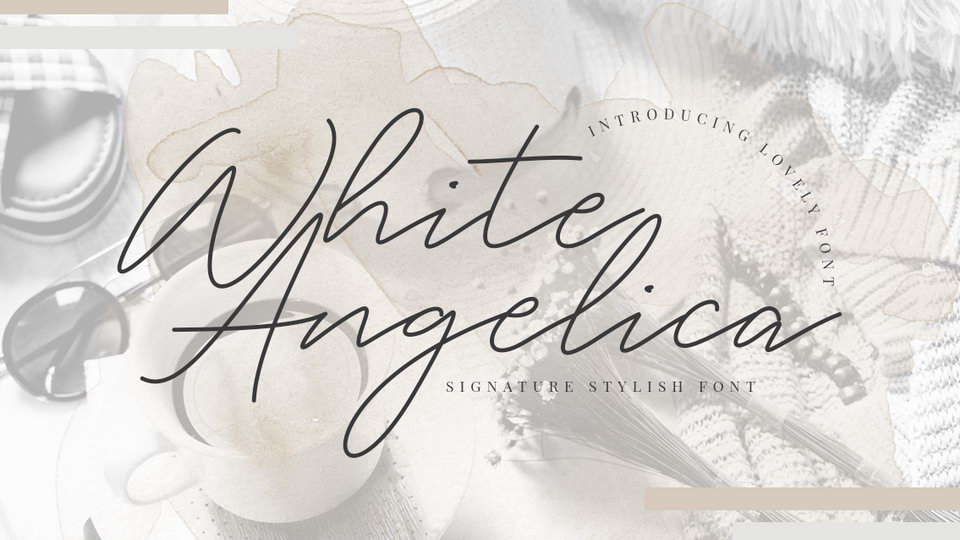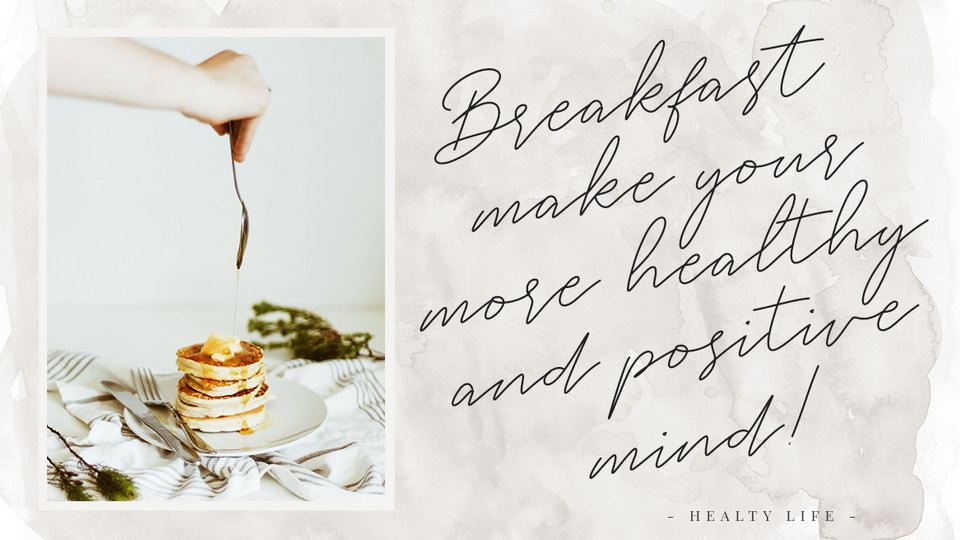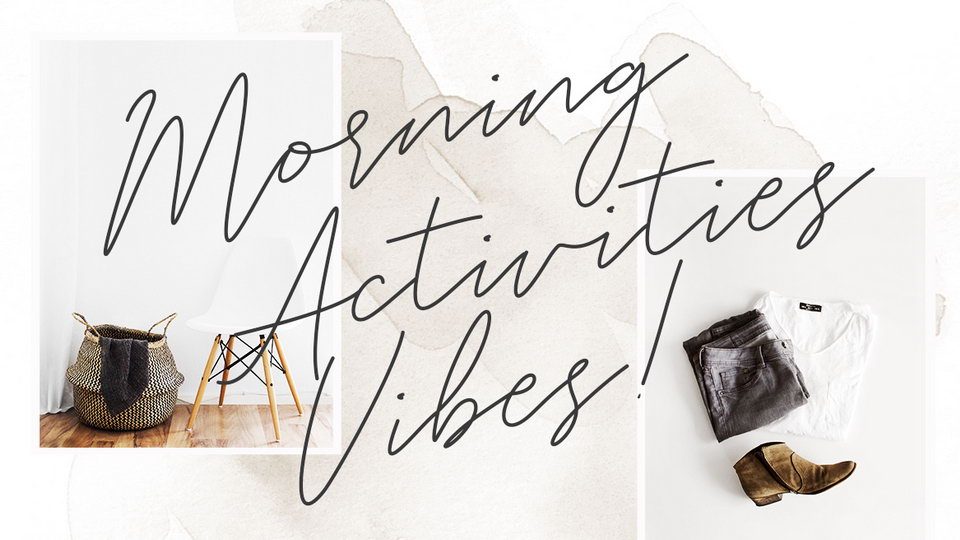
White Angelica is a casual signature script font with unique flow and natural and organic look. It contains uppercase and lowercase letters, numbers, symbols, including multilanguage support.
White Angelica Signature is perfect for branding projects, logo, wedding designs, social media posts, advertisements, product packaging, product designs, label, photography, watermark, invitation, stationery and any projects that need handwriting taste.